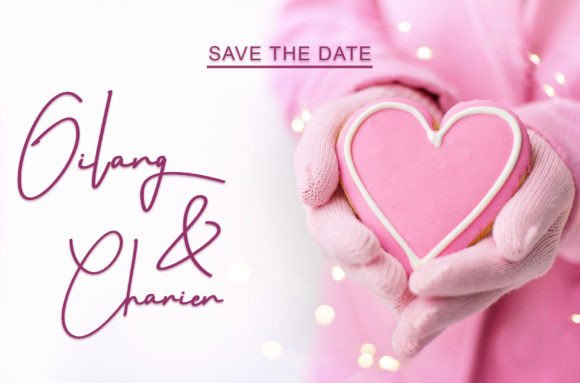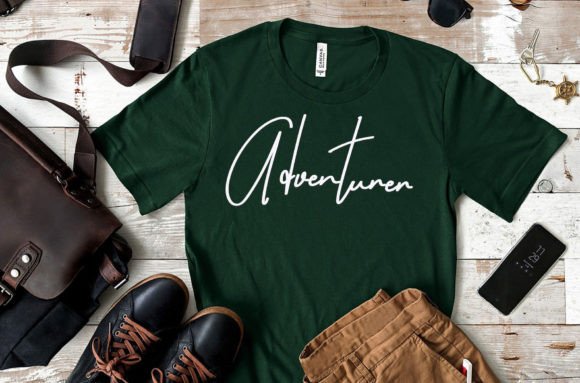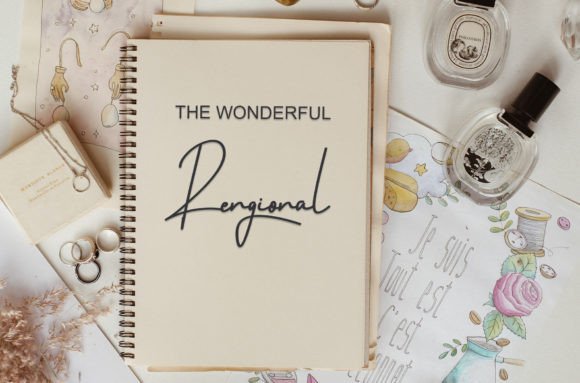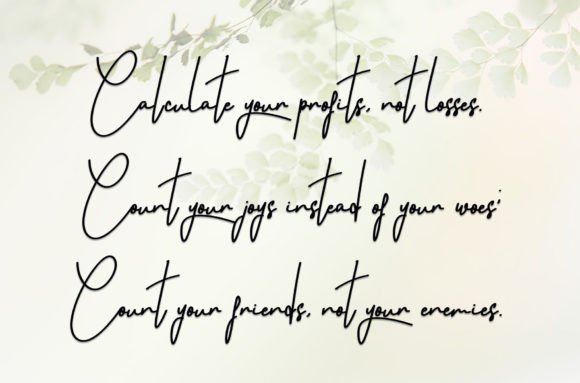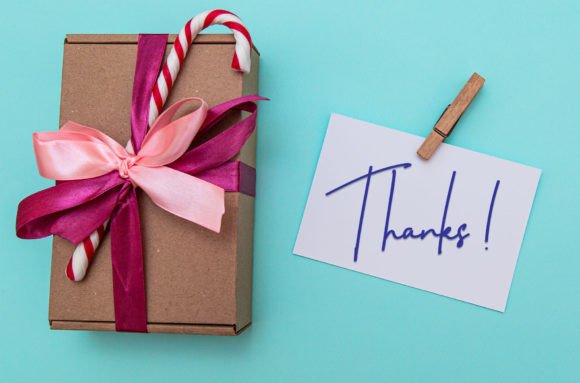
The Art of Elegant Expression: Unlocking the Power of Calligraphy Font
Do you remember the moment when you first picked up a pen and paper to create something truly special? Maybe it was a heartfelt birthday card, a romantic love letter, or a simple yet meaningful note to a friend. Whatever the occasion, the joy of putting words onto paper is a universal language that speaks to our souls. And for designers, this creative spark is the foundation of their craft.
Calligraphy Font is more than just a stylish signature script – it’s a tool that brings elegance and sophistication to any design project. Whether it’s product packaging, branding, magazines, social media, weddings, or simply adding a touch of whimsy to a background, Calligraphy Font is the perfect way to express yourself. As a designer, having access to this versatile font is invaluable, as it allows you to craft unique and memorable designs that leave a lasting impression.
Key Features of Calligraphy Font
- Unique Characteristics: Hand-drawn, elegant, and cursive design, with intricate flourishes and connections between letters, perfect for creating a sophisticated and artistic look
Designer Review: Calligraphy Font
Overall, the Calligraphy Font is a beautiful and elegant addition to any design project. ✨ Its flowing lines and intricate details give it a touch of sophistication that’s perfect for formal events, weddings, or high-end branding.
- The font’s versatility is one of its strongest suits. It comes in a range of weights and styles, allowing designers to customize it to suit their needs.
- The font’s high-quality rendering makes it look great on both digital and print materials.
- It’s a great choice for designers who want to add a touch of elegance and refinement to their work.
However, there are some limitations to consider. ⚠️ The font may not be suitable for projects that require a lot of text, as its intricate details can make it difficult to read at smaller sizes.
Additionally, the font’s high-end feel may not be the best fit for more casual or playful projects.
Overall, I would recommend the Calligraphy Font to designers who are looking for a sophisticated and elegant solution for their projects. While it may have some limitations, its beauty and versatility make it a great addition to any design arsenal.
Tips for Getting the Most Out of Calligraphy Font
Experiment with different font sizes and styles to create a unique and eye-catching design. Use calligraphy font sparingly to add emphasis to key words or phrases. Combine calligraphy font with other decorative elements, such as illustrations or graphics, to create a visually appealing design.
Calligraphy font is commonly used for:
Birth announcements and baby showers
Special occasion cards and gift tags
Typography-based art and designs